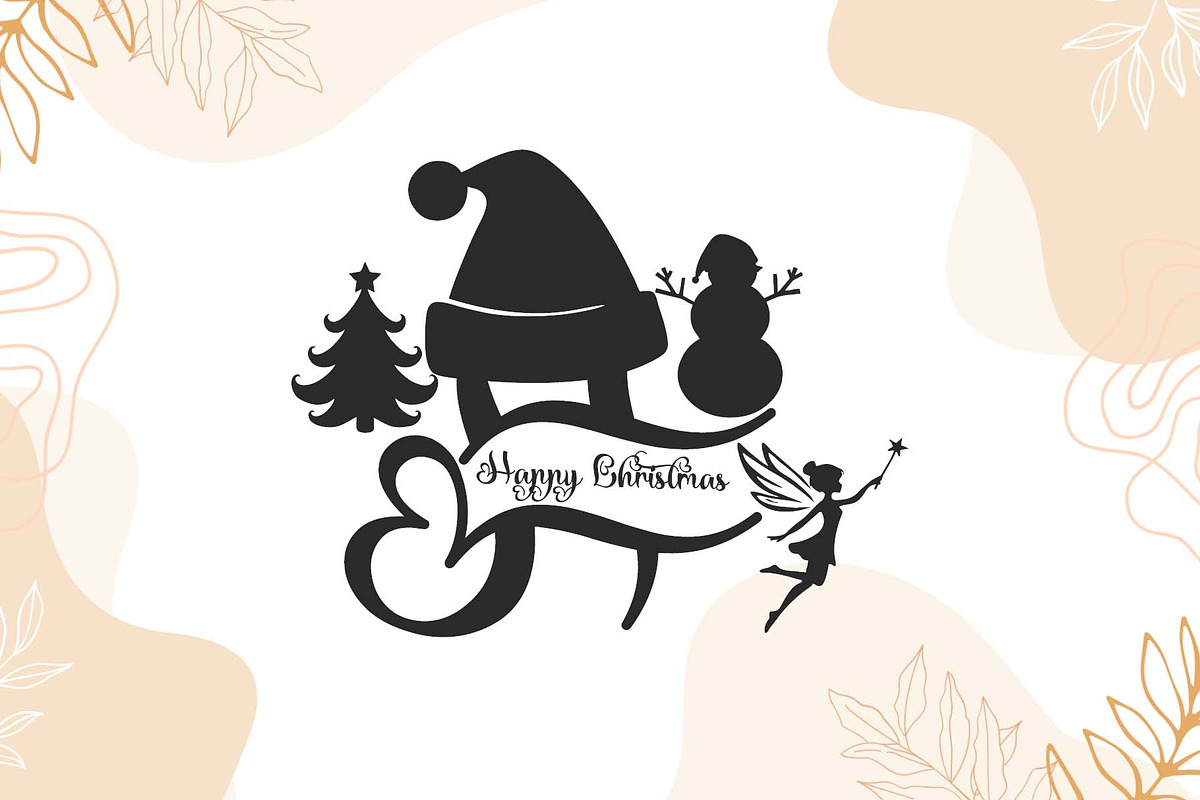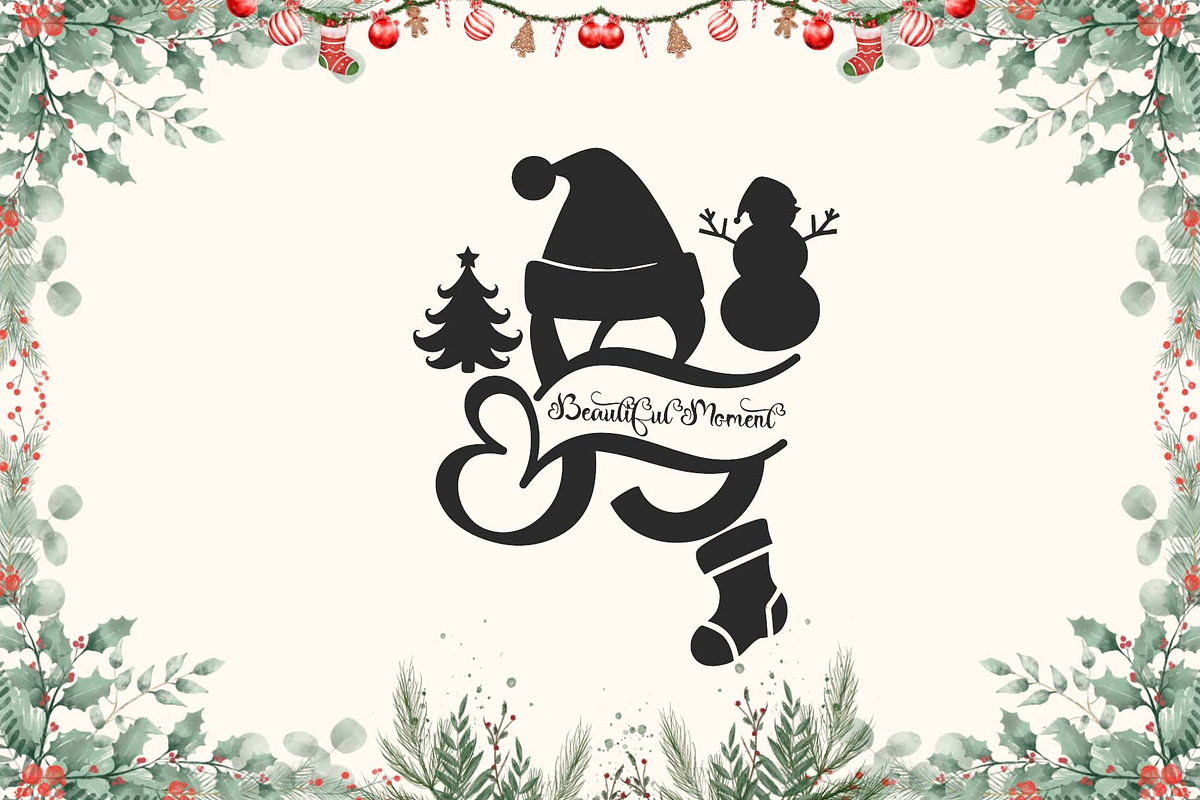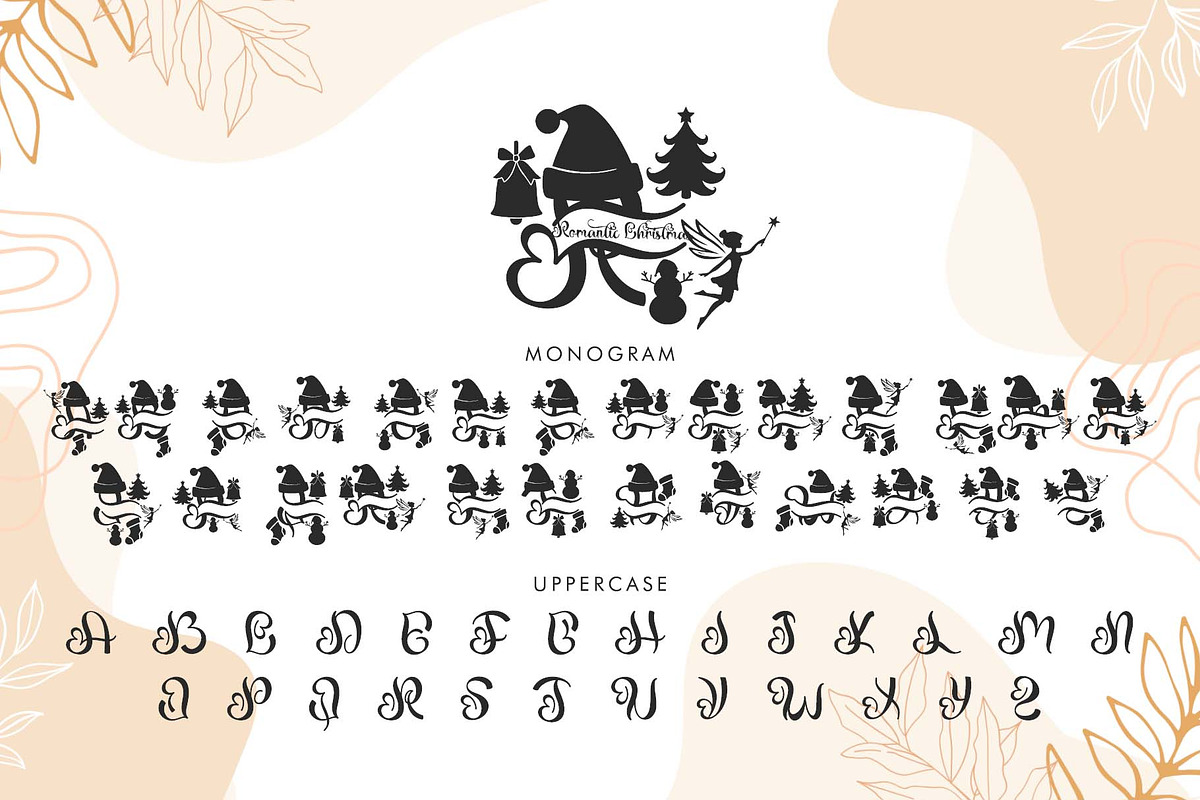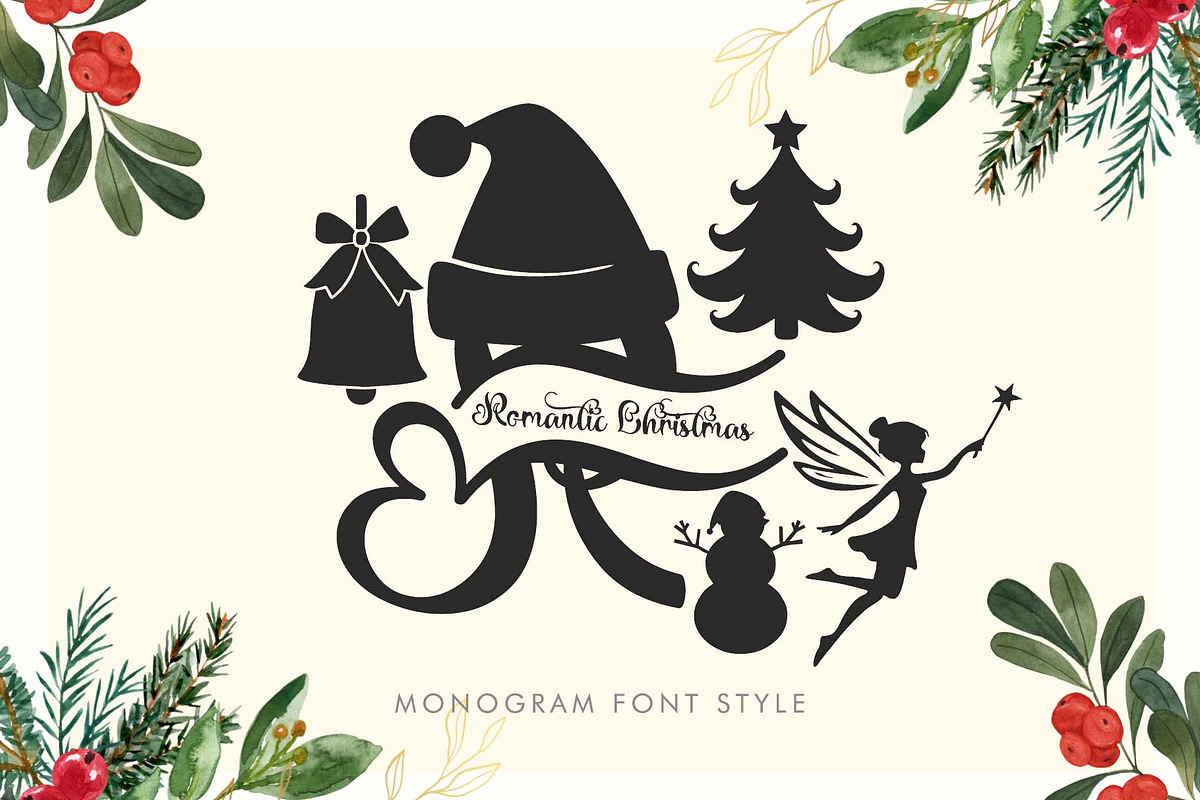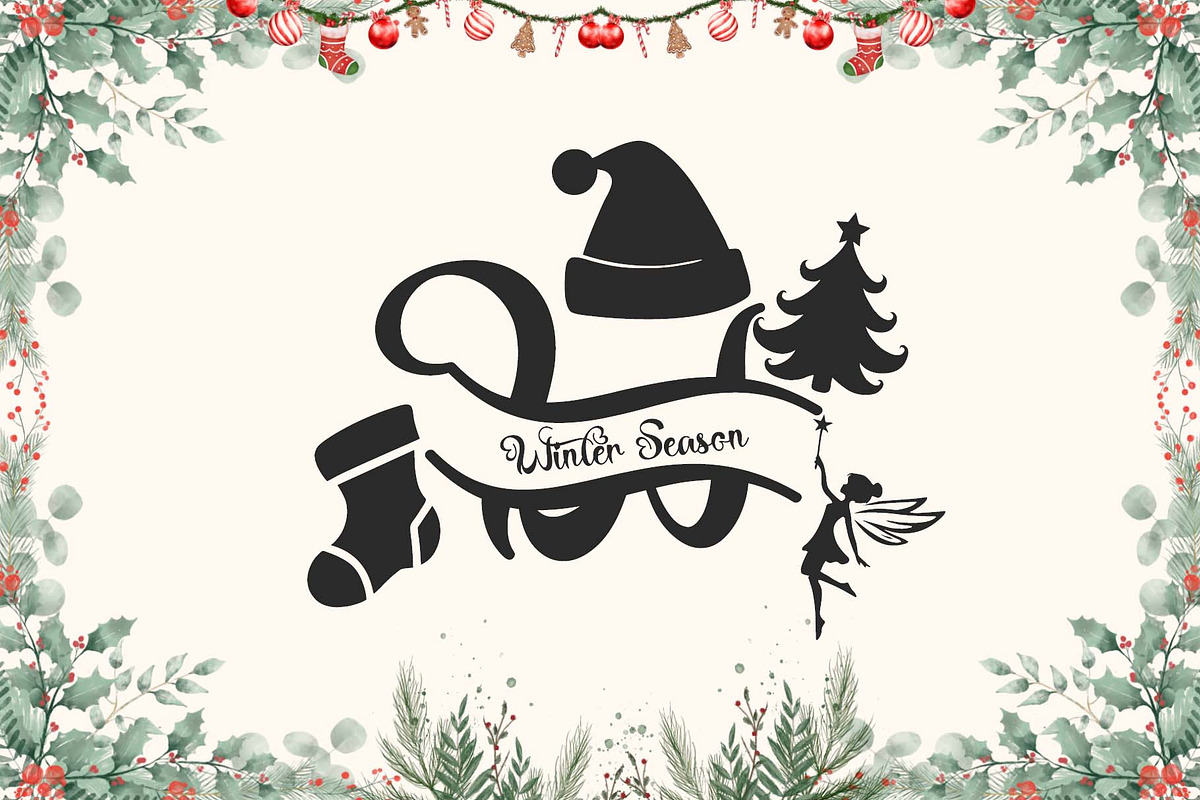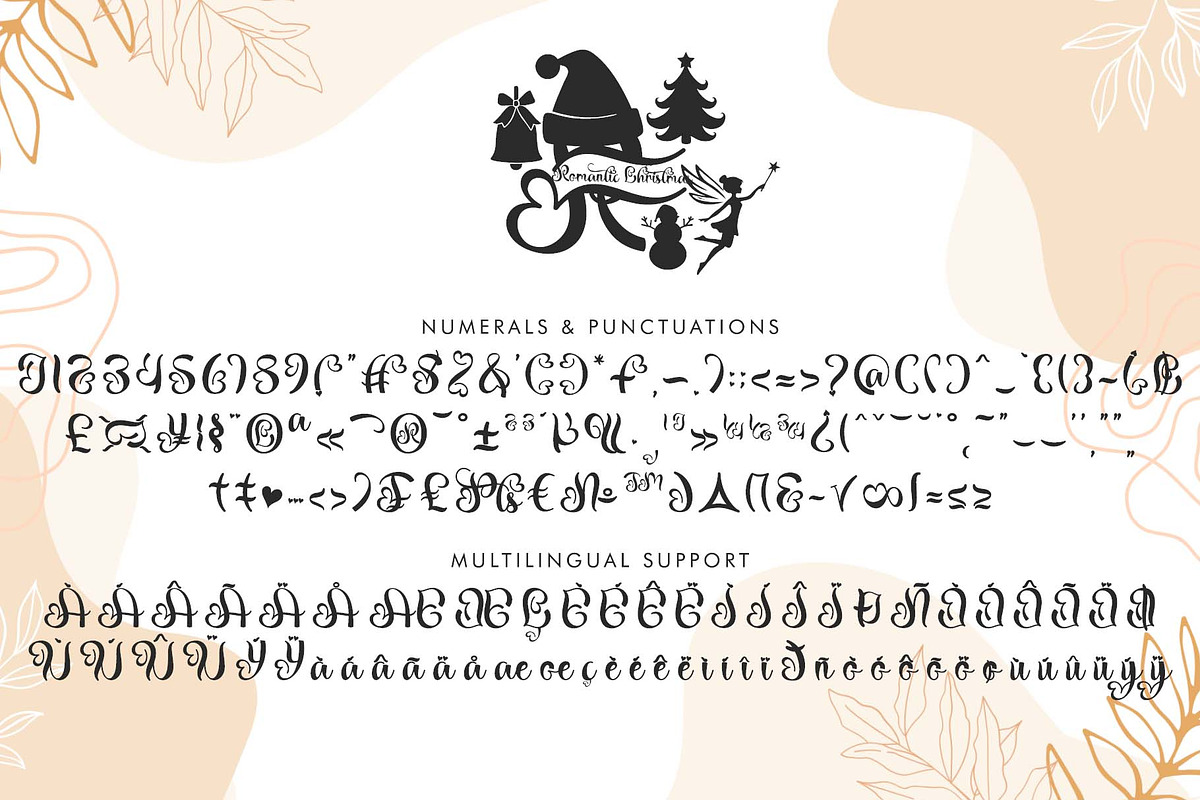
Romantic Christmas Monogram
"Romantic Christmas Monogram" is a beautiful and unique monogram font. It features monograms, uppercase and lowercase letters, numerals, punctuations, and multilingual support. It's perfect for Christmas, fall, Valentine's Day, weddings, autumn, winter, vacations, holidays, prints, stickers, gifts, branding, logos, spring, summer, Halloween, and more.